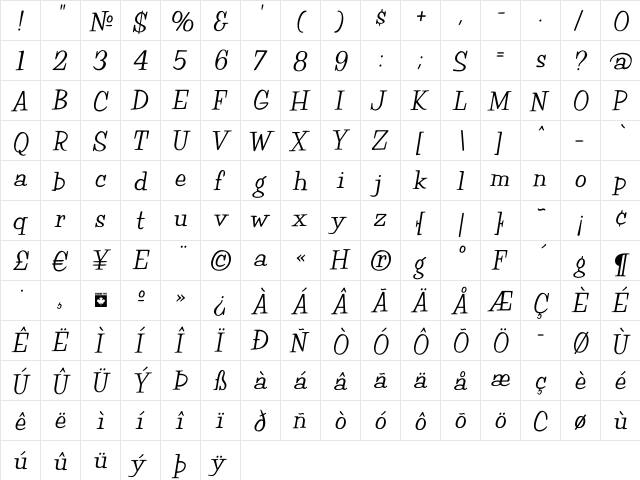
Happy Italic
Design Context for Happy Typeface
Happy offers clean, dependable letterforms without strong stylistic allegiance, making it a practical choice for designers who need flexibility. The dynamic lean of this cut emphasises speed and emphasis in any layout.
Pro Tip: Use Happy for emphasis, pull quotes, and subheadings where its slanted energy can add rhythm to the layout.